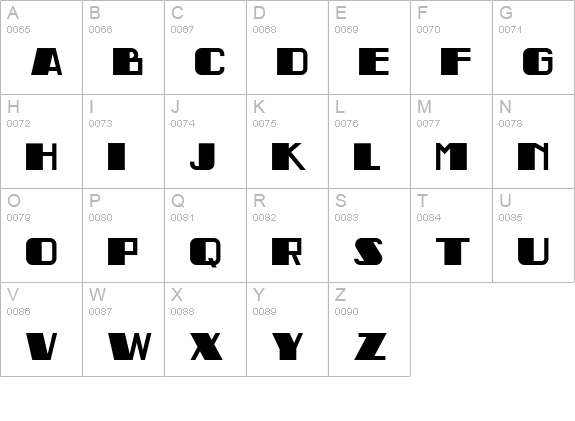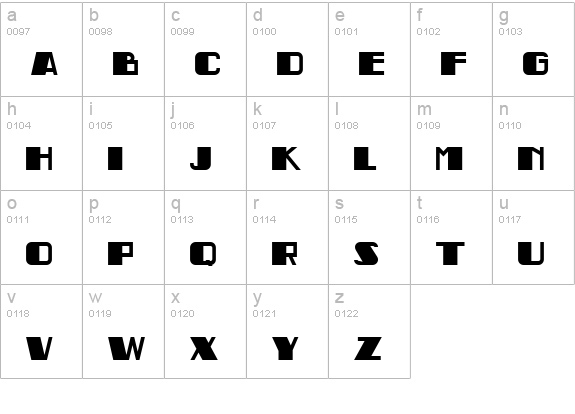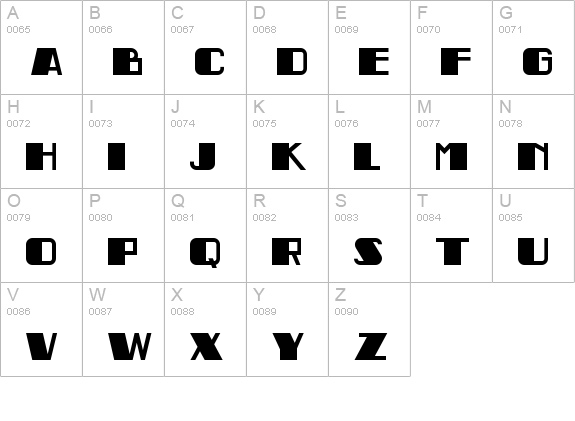
Indochine NF Font Details
Indochine NF is a captivating and versatile font that exudes elegance and sophistication. With its unique blend of classic and modern design elements, this typeface is perfect for adding a touch of style to any project. The sleek lines and intricate details of Indochine NF make it ideal for a wide range of applications, from branding and advertising to editorial design and more. What sets Indochine NF apart is not only its stunning aesthetic appeal, but also the fact that it is available for free download at FontsMarket.com. This means that you can easily access this premium font without having to break the bank. Whether you're a seasoned designer looking to enhance your portfolio or a newcomer seeking to make a statement, Indochine NF is the perfect choice for all your typographic needs. Download it today and elevate your designs to new heights!